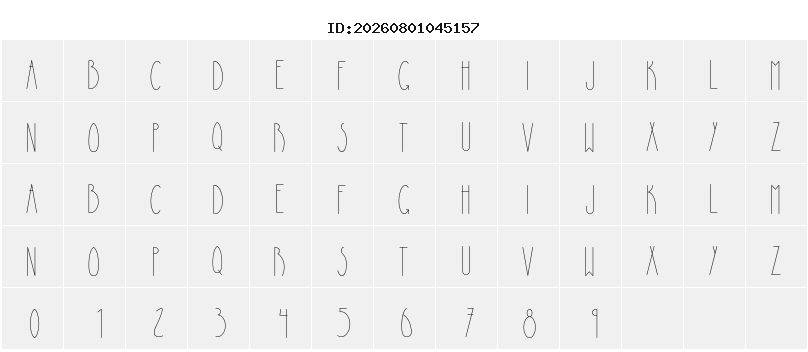
• Font Name: La Piedrita
• Designer: La Habichuela Mágica
About La Piedrita.otf
La Piedrita.otf is a modern, elegant sans-serif font designed for ultimate readability and visual harmony. Perfect for branding, headlines, web design, and print materials.